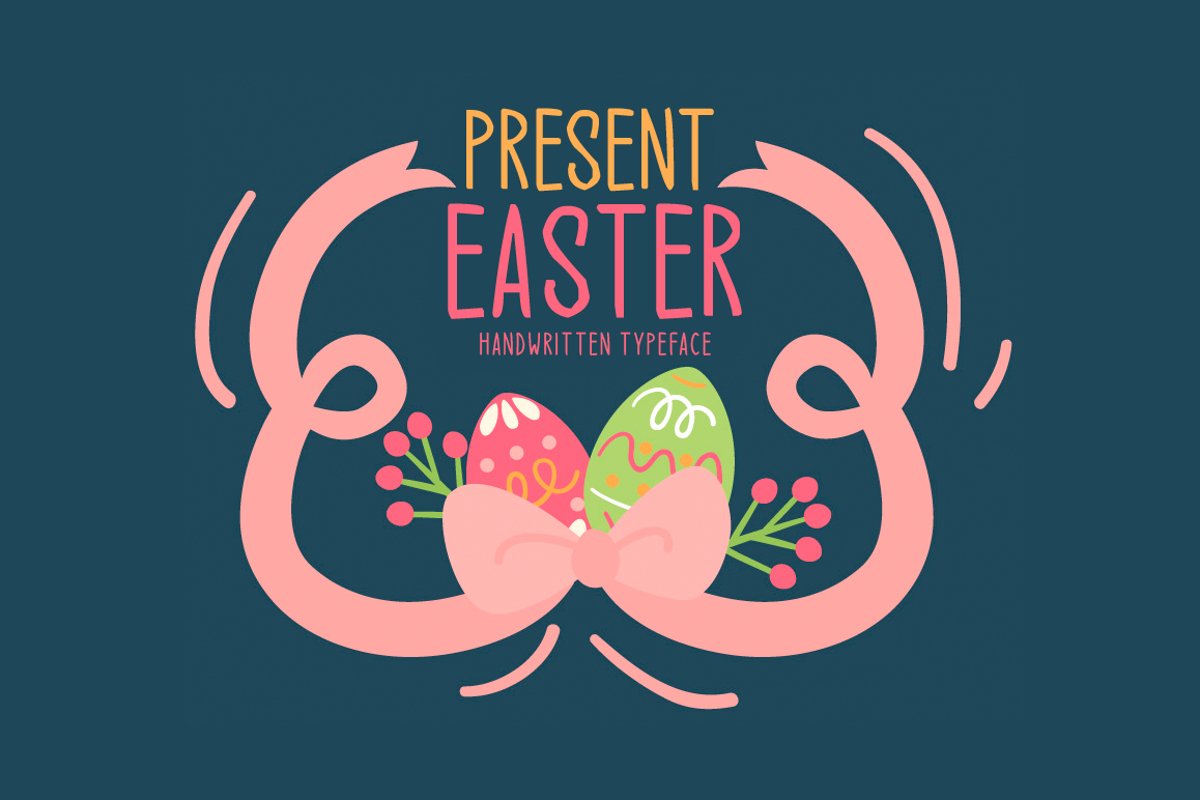
Introducing Present Easter!
Present Easter is a brand new handwritten font. Present Easter is perfectly suited for stationery, logos, t-shirt, paper, print design, website header, photo frame, flyer, music cover, poster, image slider and much more.